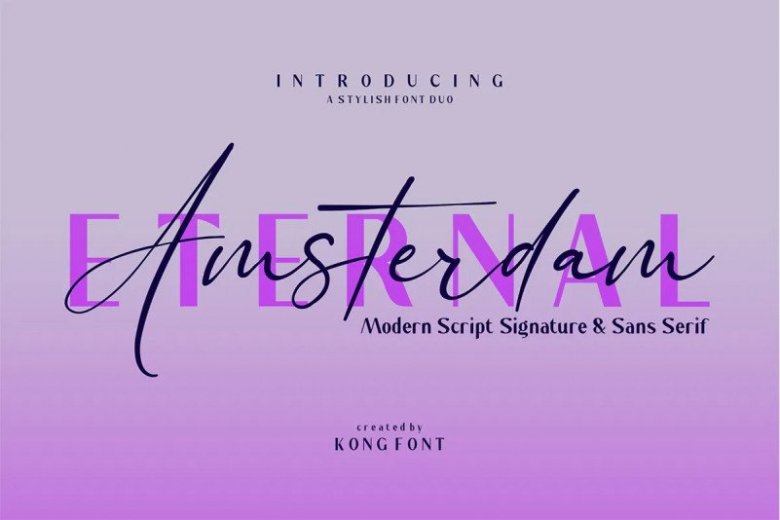
Eternal Amsterdam Font Duo
Introducing Eternal Amsterdam Font Duo! This font duo comes with a script typeface as well as a sans serif typeface. The two typefaces complement each other really well with beautiful, eye-catching handwritten nuances.
Perfect for making bold stylish statements – or adding a touch of class to your designs like for branding, logos, invitation, mastheads, and more.